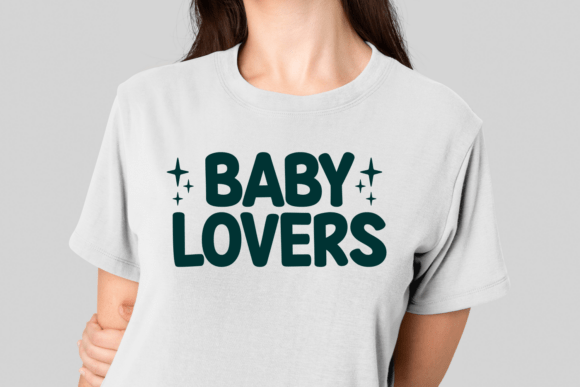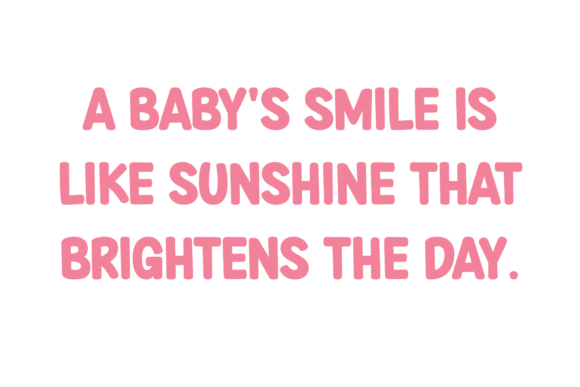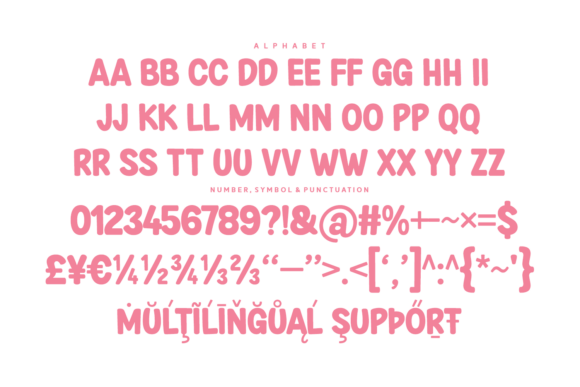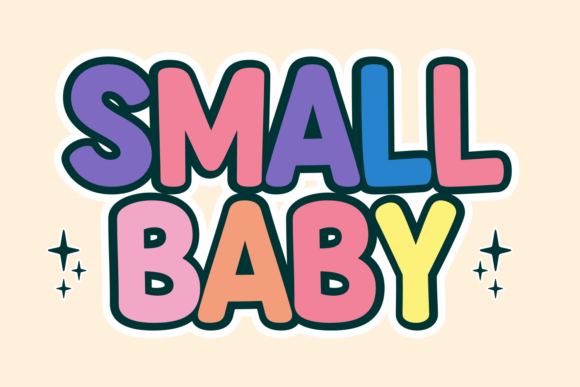
Unleash the Power of Playfulness with Cute Humble Font
Are you ready to inject a wave of youthful fervor into your designs? Look no further than the charming “Cute Humble” font, a playful display aesthetic that breathes life into any project. This delightful font is perfect for designers and crafters seeking to add a touch of whimsy and nostalgia to their work.
The Charm of Cute Humble
Imagine “Cute Humble” splashed out on children’s products’ packaging or swinging from the banners at a birthday party. Its quintessential expression makes it an ideal fit for casual game interfaces, injecting a wave of giddy delight into the digital world. The font’s unparalleled readability connotes a candy store’s unique whimsy, making it perfect for designs that require a playful and youthful touch.
A Digital Artist’s Dream
“Cute Humble” is not just a font, but a digital artist’s dream. It seamlessly integrates into digital planners and YouTube thumbnails, embracing the maximalist trends with its bold retro font motifs. Whether you’re nostalgic for the 70s style or seeking a warm touch of vintage, its groovy alphabet and bubble letter styles bring together the best of the bygone and the contemporary.
As versatile as it is vibrant, “Cute Humble” is a summer breeze on branding and logo fronts. Its versatility spans sticker designs and t-shirts, effortlessly planting itself in various mediums. This font is perfect for designers and crafters who want to create engaging and playful designs that appeal to a wide range of audiences.
“Cute Humble” is an ideal font for designers and crafters who want to add a touch of playfulness to their work. Its bold and retro motifs make it perfect for:
- Children’s products’ packaging
- Birthday party banners and decorations
- Casual game interfaces
- Digital planners and YouTube thumbnails
- Sticker designs and t-shirts
- Branding and logo designs
Why Choose Cute Humble?
So, why choose “Cute Humble” font for your next project? Here are just a few reasons:
- Unique and playful aesthetic: “Cute Humble” offers a one-of-a-kind playful display aesthetic that will set your designs apart from the rest.
- Unparalleled readability: The font’s clear and readable design makes it perfect for digital and print applications.
- Versatility: “Cute Humble” can be used in a wide range of mediums, from children’s products to digital designs.
- Nostalgic charm: The font’s retro motifs evoke a sense of nostalgia, making it perfect for designers and crafters seeking a vintage touch.